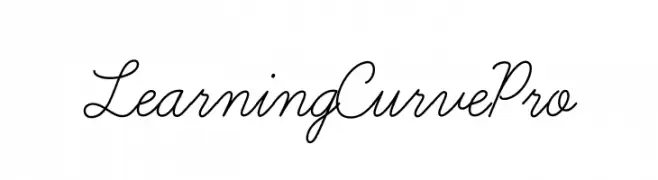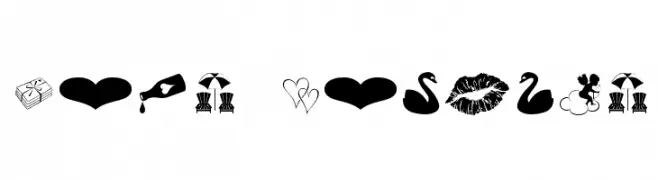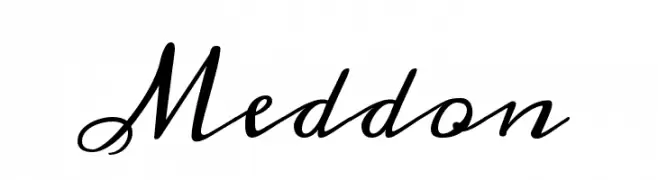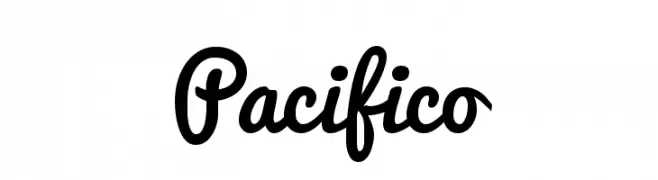
A playful, flowing script font with smooth, connected strokes and a handwritten feel.
An elegant, flowing script font with ornate uppercase letters and harmonious lowercase characters.
An elegant, cursive handwritten font with smooth, connected strokes.
A dynamic and flowing script font with elegant, connected letterforms.
A whimsical, decorative font with Valentine-themed doodles and playful illustrations.
A decorative font with script letters inside black heart shapes.
A graceful and elegant script font with flowing, cursive letters.
A dynamic, cursive script font with medium contrast and expressive strokes.
A dynamic and elegant script font with fluid, connected strokes.
A sophisticated script font with flowing, cursive strokes and elegant flair.
A whimsical and elegant script font with flowing, cursive letters.
A lively, cursive script font with interconnected characters and dynamic strokes.
A modern, italicized font with clean lines and balanced proportions.
A bold, modern sans-serif font with clean lines and uniform strokes.
A bold, modern sans-serif font with clean lines and excellent readability.
A clean, modern sans-serif font with balanced proportions and high legibility.
A modern, clean sans-serif font with consistent stroke width and excellent readability.
A sleek, modern italic font with medium contrast and elegant slant.
A dynamic and fluid script font with elegant, handwritten characteristics.
A casual, elegant handwritten font with fluid, connected letterforms and dynamic rhythm.
A flowing, elegant script font with calligraphic flourishes.
An elegant, cursive script font with a flowing, handwritten style.
A graceful, cursive script font with a handwritten style.
A playful, whimsical handwritten font with flowing, interconnected letterforms.
A graceful and fluid cursive script font with elegant, interconnected strokes.
An elegant script font with fluid, cursive strokes and refined contrast.